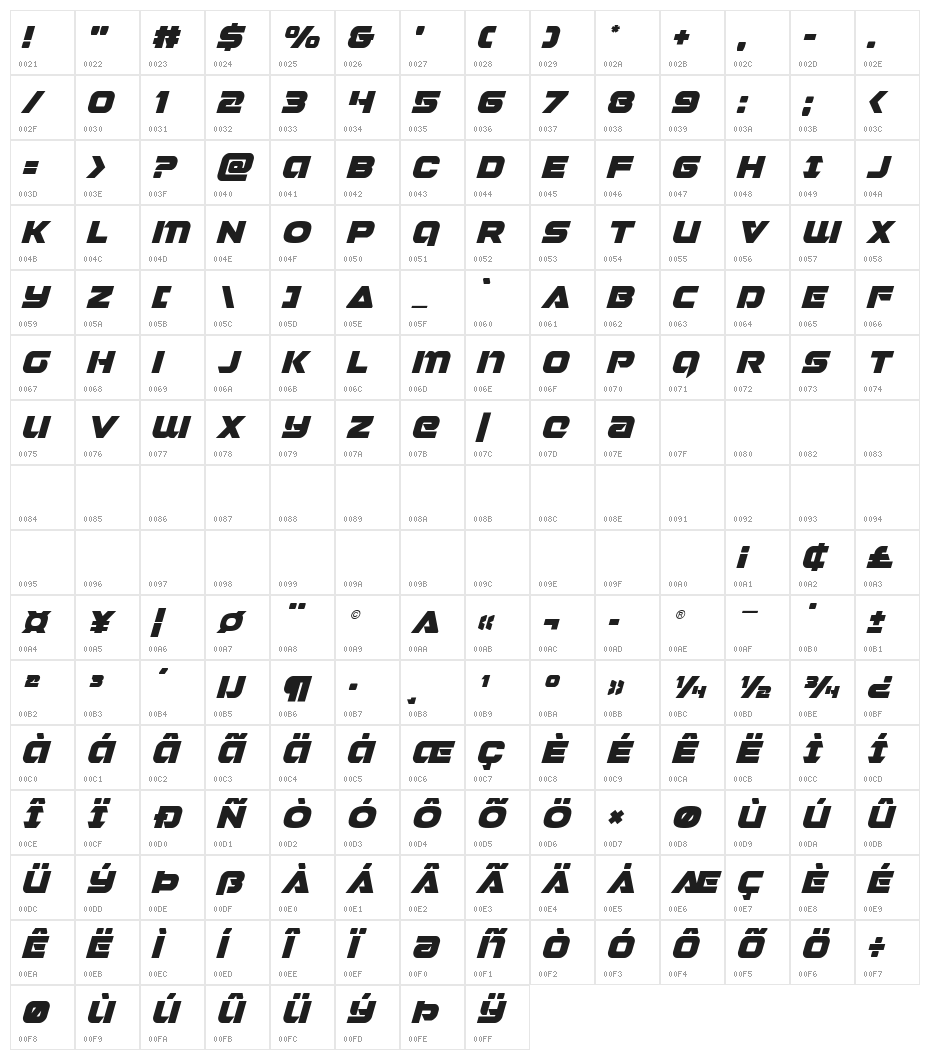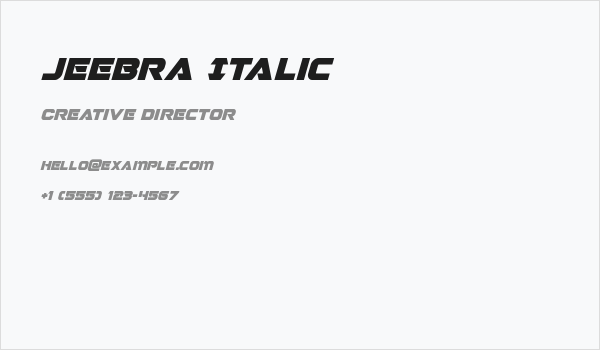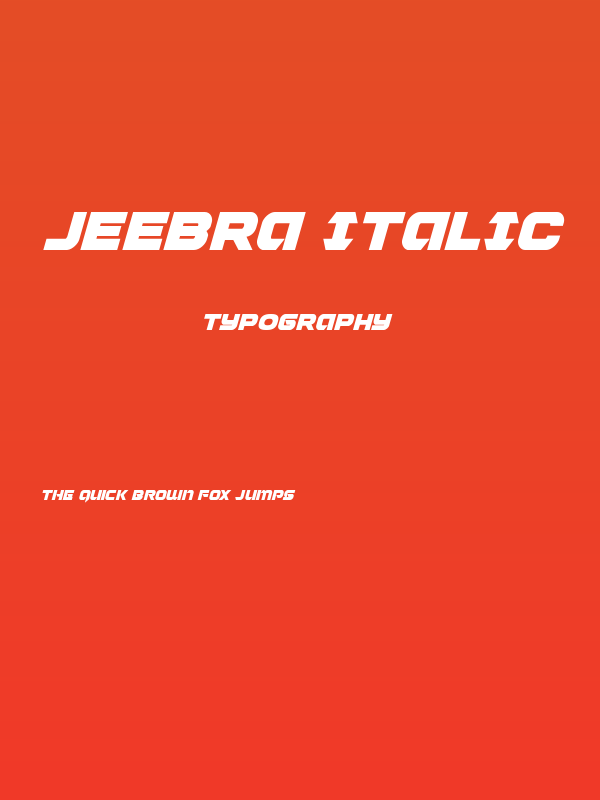
Jeebra Italic Font
Jeebra Italic Description
This font features a bold and dynamic style with a strong italic slant, giving it a sense of motion and energy. The characters are wide and have a futuristic, angular design, making them stand out prominently. The strokes are consistent in thickness, providing a uniform appearance across all characters. The font includes both uppercase and lowercase letters, numerals, and a variety of special characters, all maintaining the same bold and italicized characteristics. Its unique style is suitable for projects that require a modern and impactful look.
| Proposed Projects | Ideal for sports branding, tech-related designs, video game titles, and dynamic posters. |